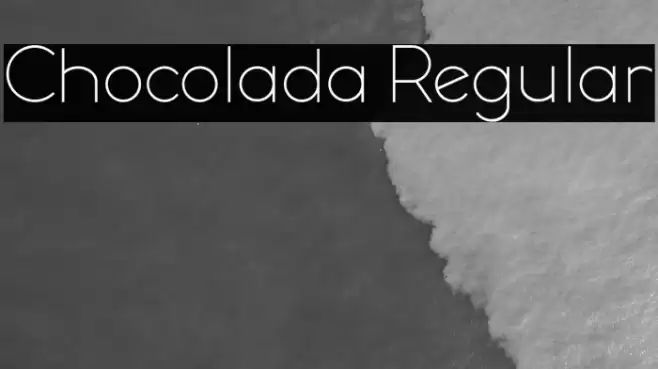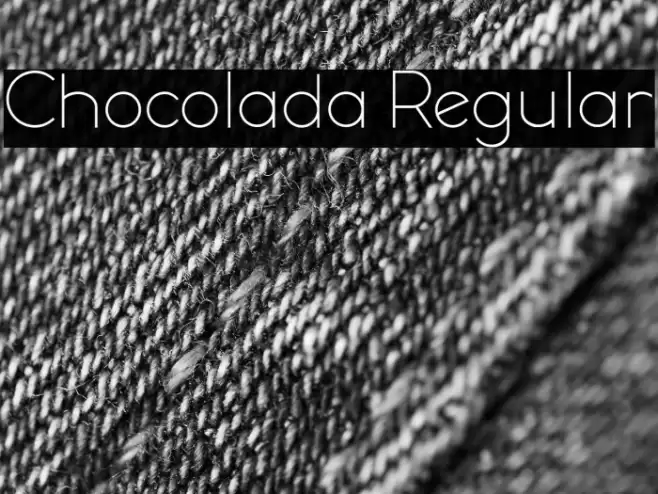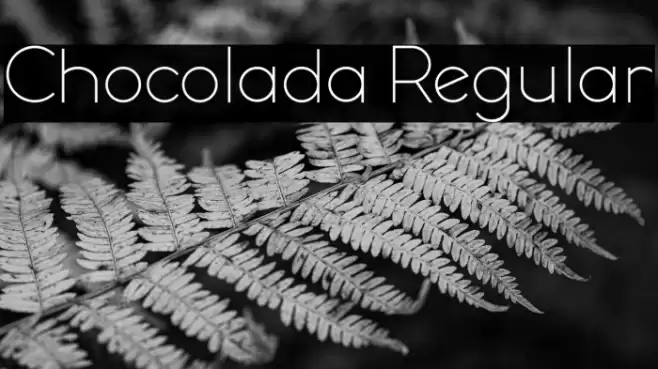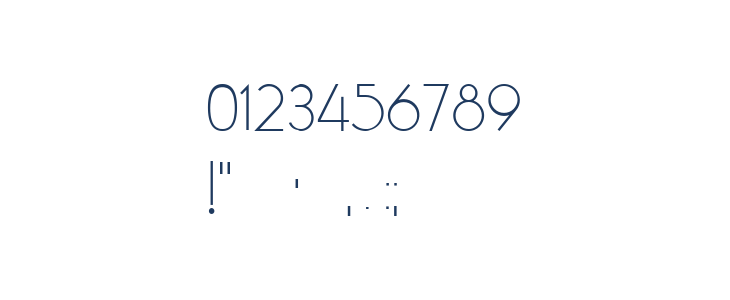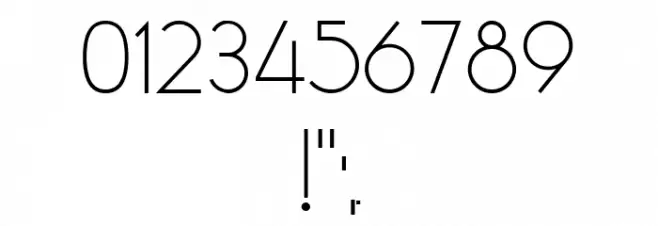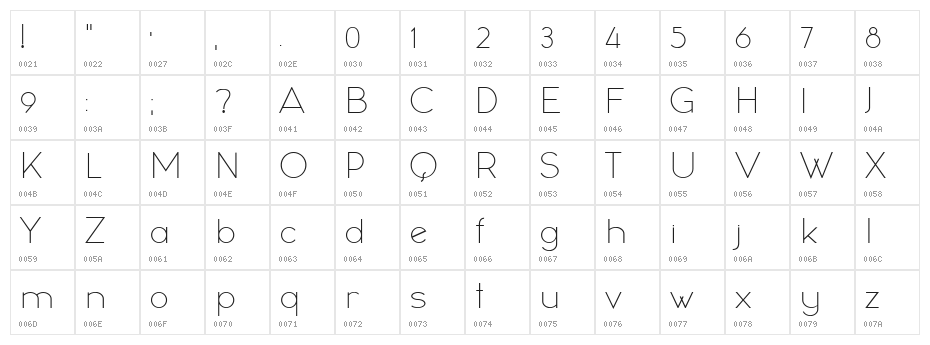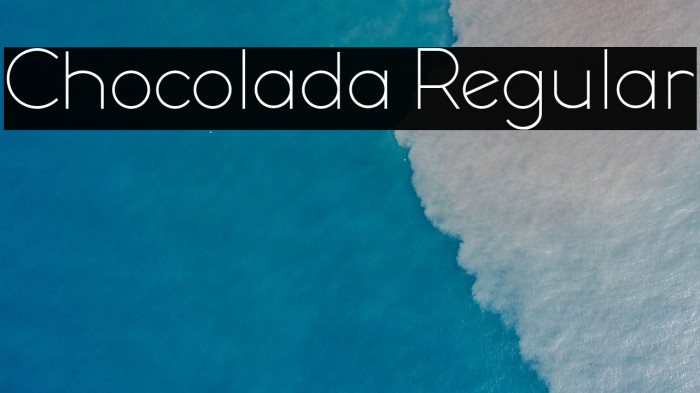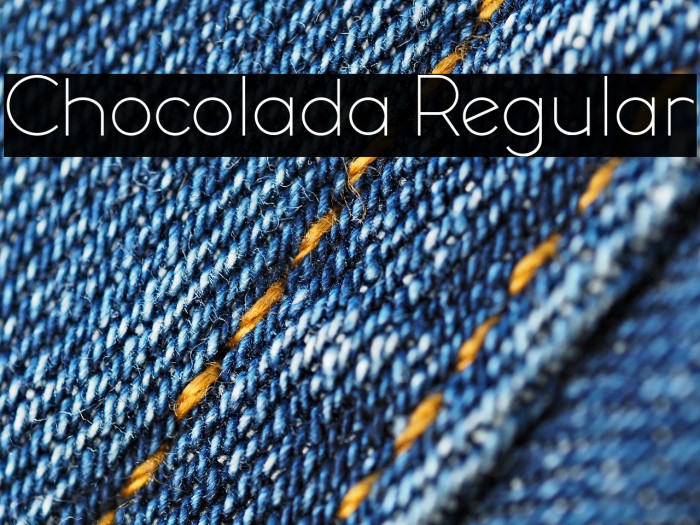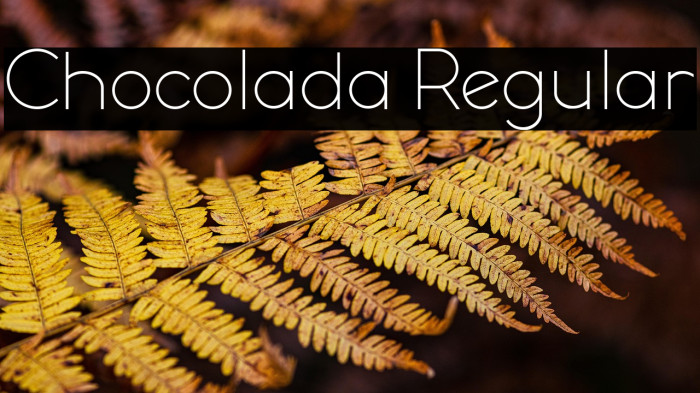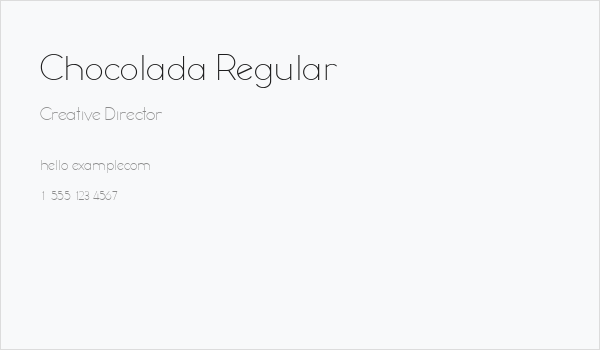
Chocolada Regular Font
Chocolada Regular Description
This font features a clean and modern design with a geometric structure. The characters are sleek and minimalistic, offering a sense of elegance and simplicity. The uppercase letters are tall and uniform, while the lowercase letters maintain a consistent height, providing a balanced appearance. The numerals are straightforward and align well with the overall style. The special characters are designed to complement the alphabet, maintaining the same thin line weight and geometric form. This font is versatile and can be used in various design contexts where a modern and clean aesthetic is desired.
A clean, geometric font with a modern and minimalistic style from Regular fonts.